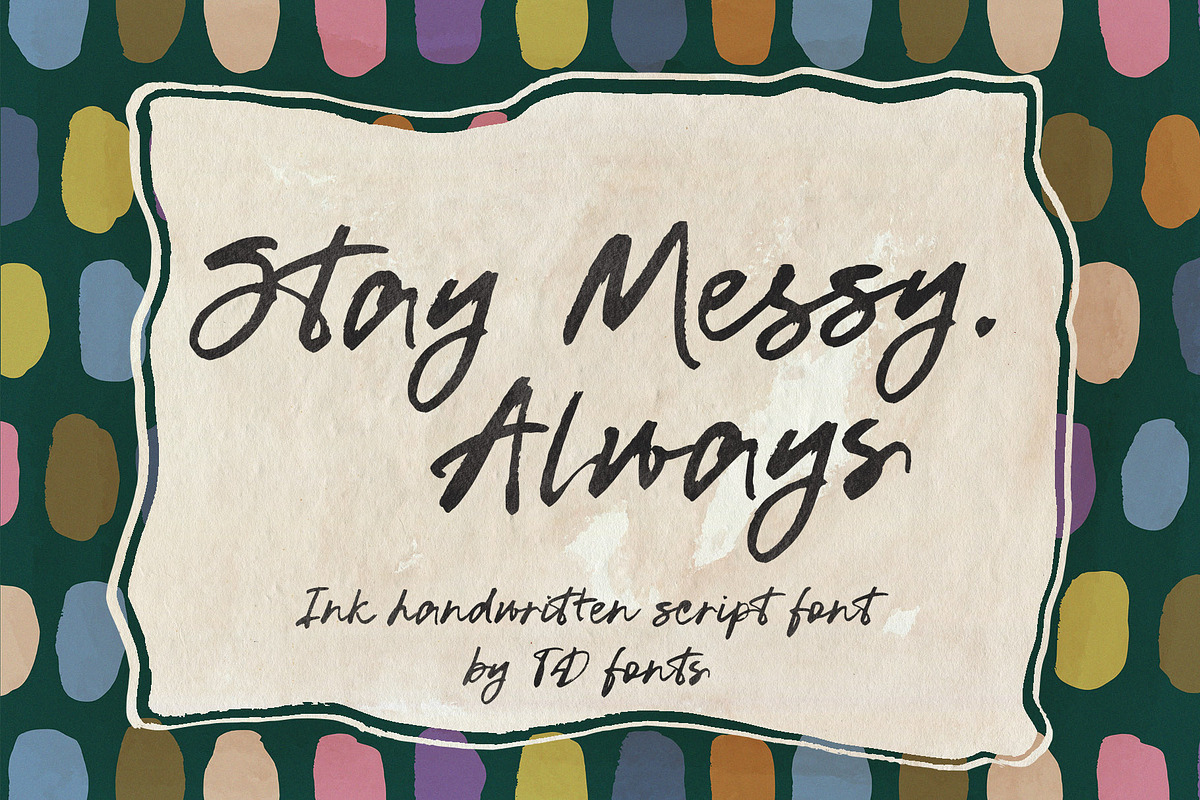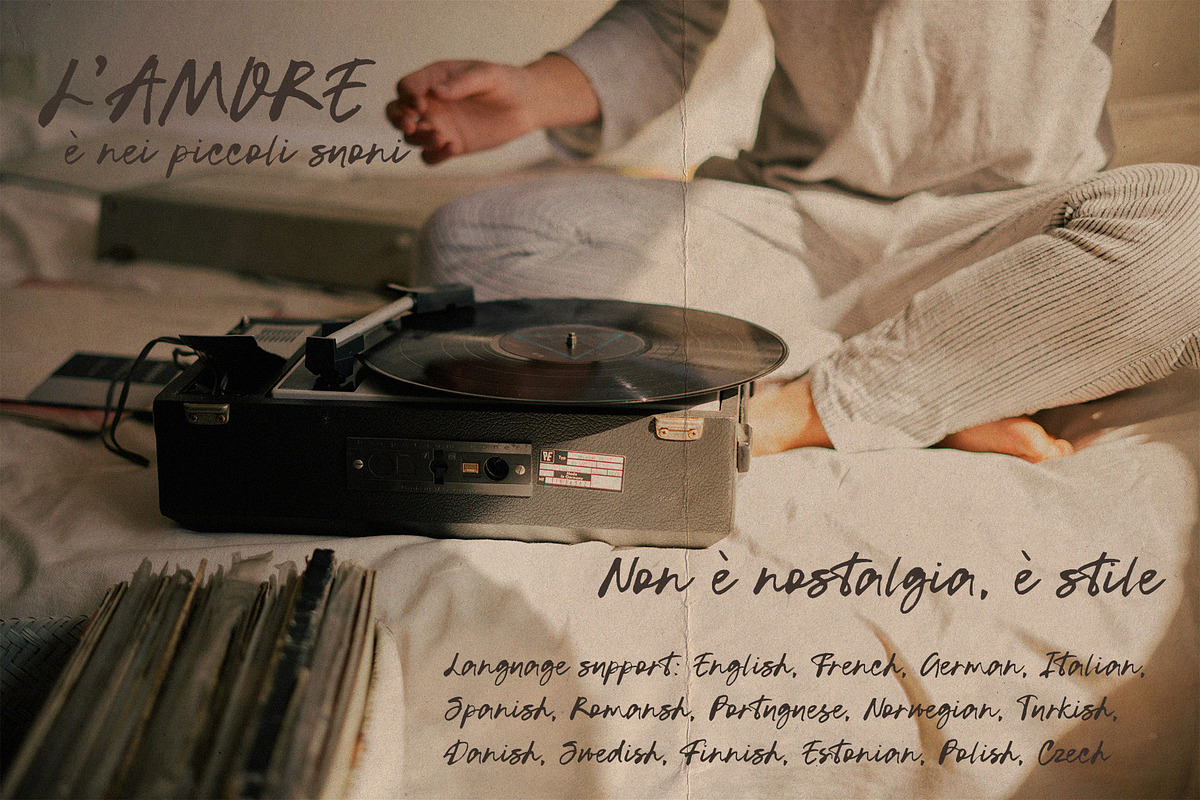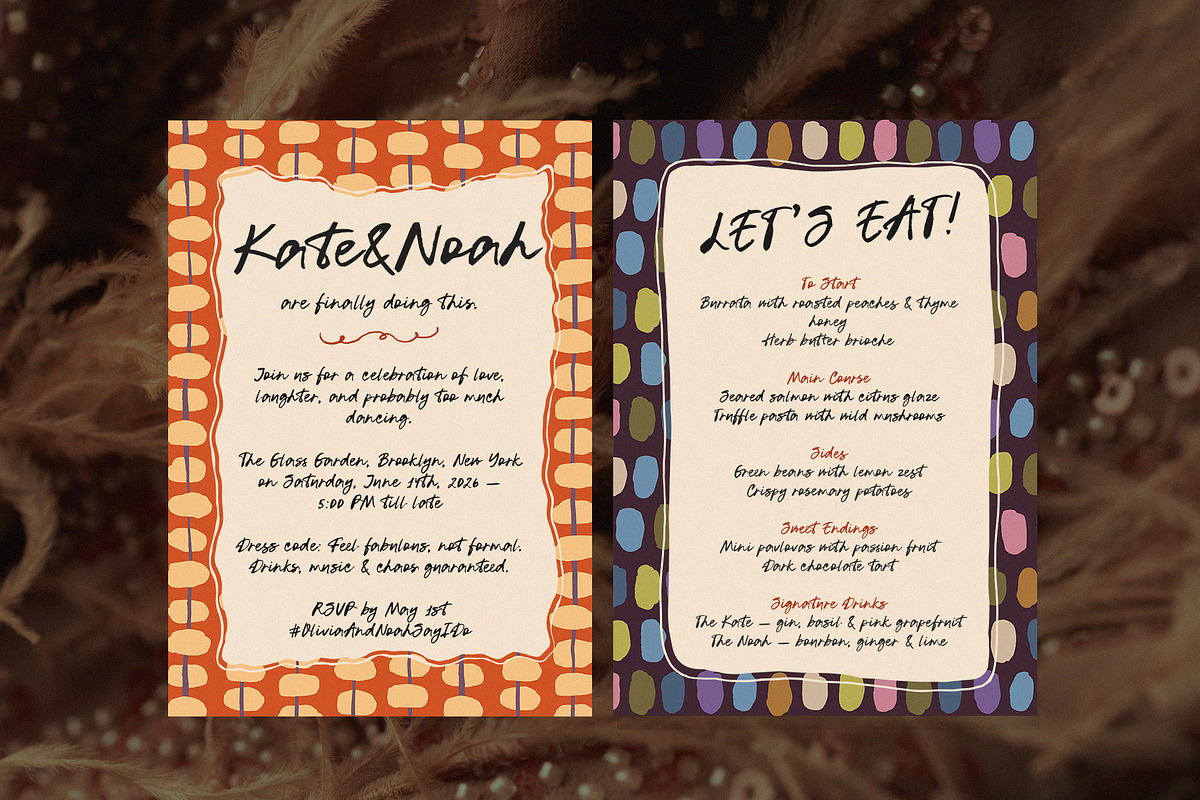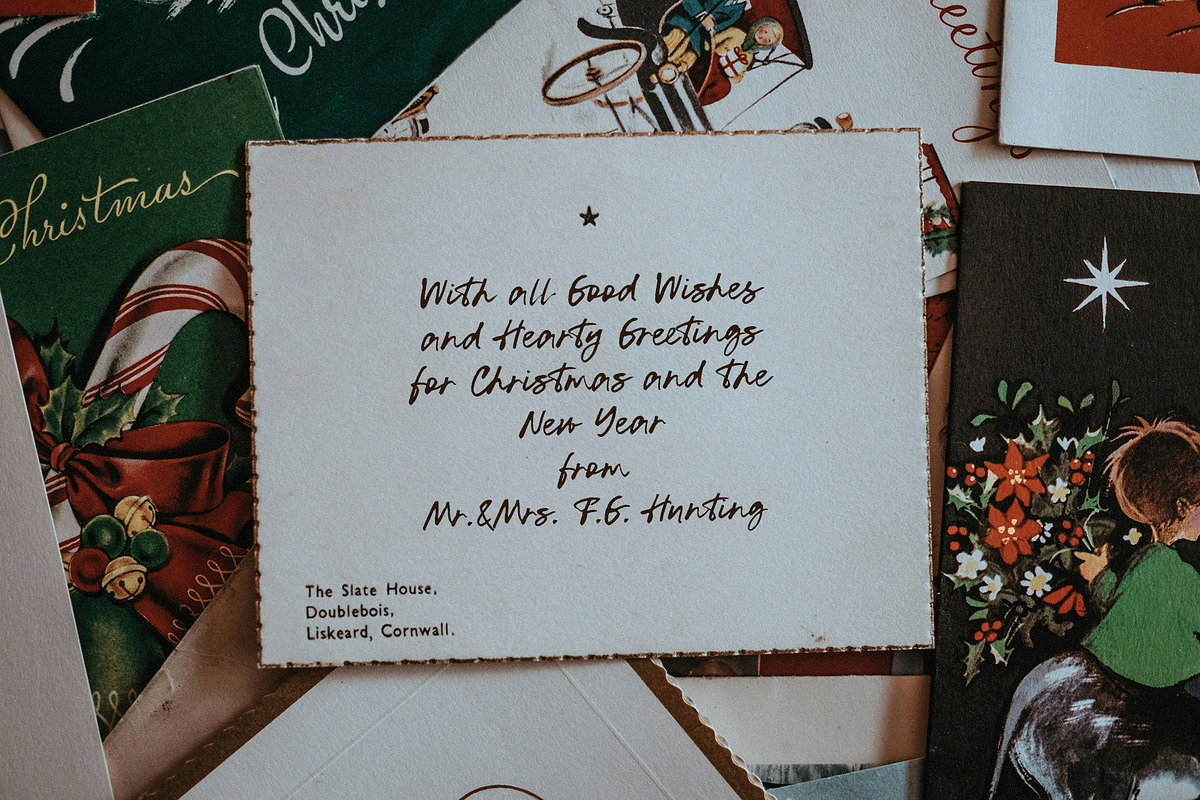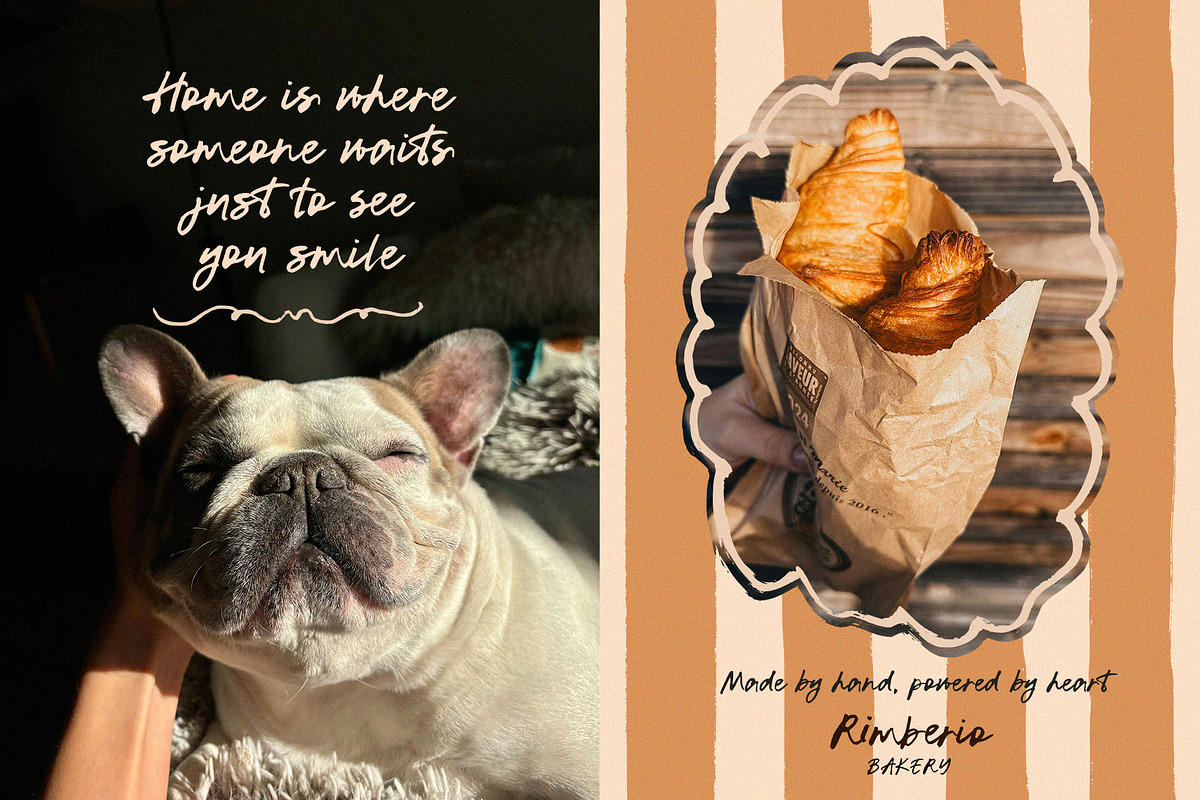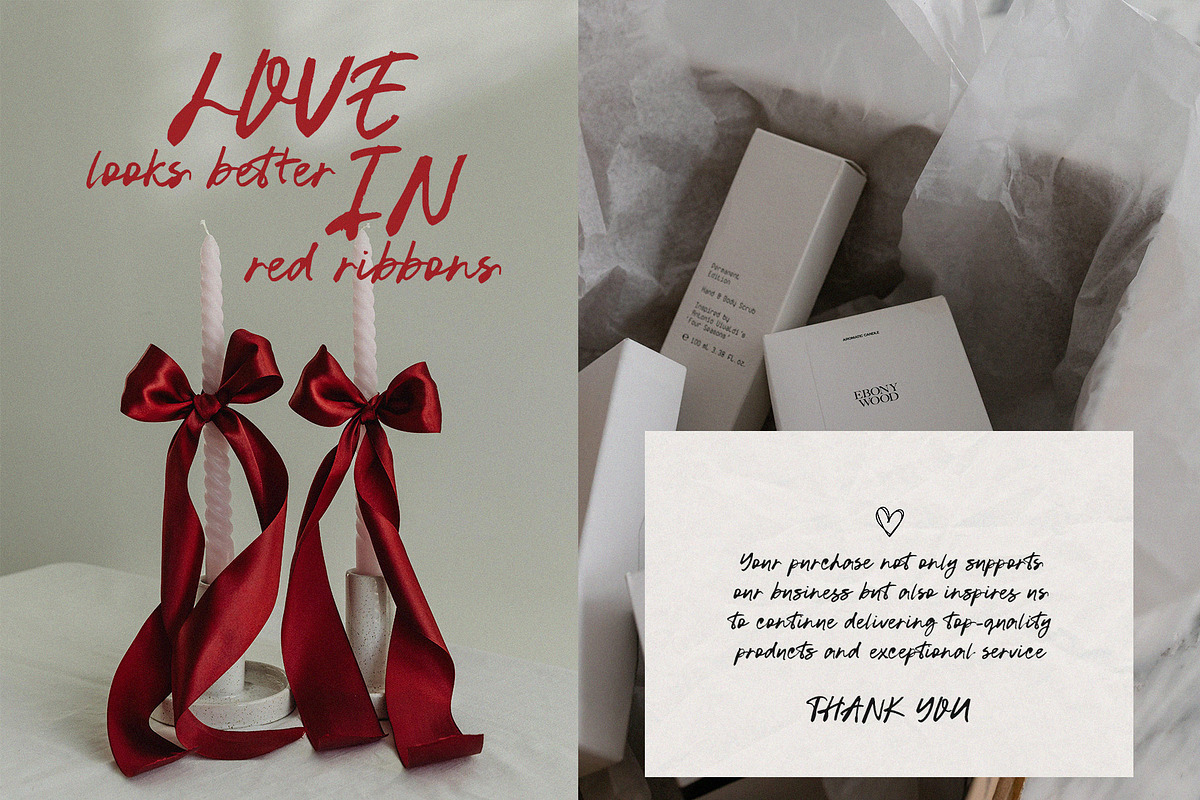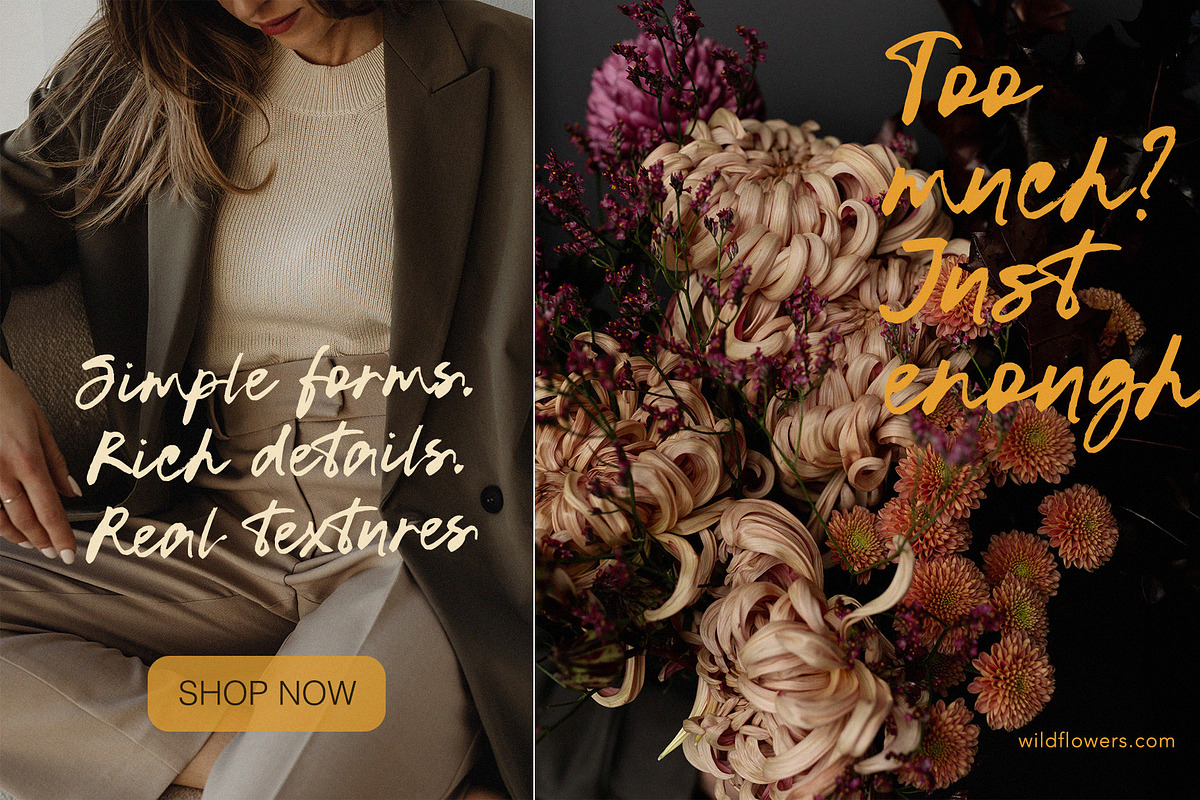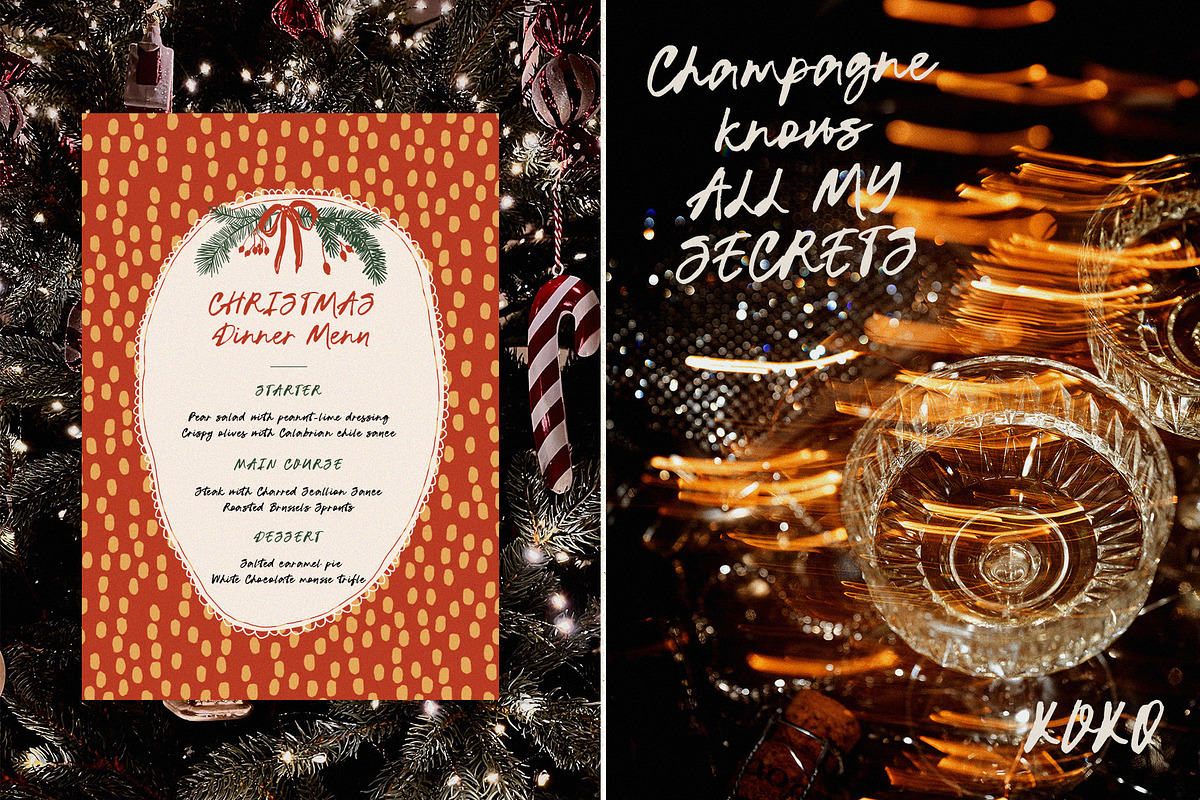
Messy ink script font handwritten
Stay Messy. Always is a bold handwritten ink script font written with a vintage dip pen — expressive, fast, and perfectly imperfect, just like the best creative moments.
Every stroke carries the raw energy of real ink and the momentum of handwriting that doesn't try too hard to be perfect — it simply is. The letterforms are large and generous, with a strong rightward lean, wide looping ascenders, and organic connections that make every word feel written in one continuous, confident motion. The ink texture gives the strokes a slightly rough, honest quality — not distressed or damaged, but alive and warm, the way good handwriting always feels.
Stay Messy combines a subtle retro vibe with a modern twist. It has the boldness of a display script and the readability of a practical workhorse — equally at home as a large headline and as flowing event stationery text. The slightly rough ink texture adds depth and personality, while smooth connections and organic rhythm keep it balanced and easy to read. It pairs beautifully with minimalist sans-serif fonts, bringing emotion and texture to clean, modern layouts.
If you love fonts with soul — a little messy, a little nostalgic, and full of life — Stay Messy. Always is your perfect match.
Graphic design & modern branding
Product packaging & labels
Wedding stationery, invitations & event design
Christmas cards, holiday prints & seasonal packaging
Websites & social media graphics
Editorial layouts, posters & prints
Any project that needs handmade warmth and expressive energy
Font features:
Bold handwritten ink script written with a vintage dip pen — raw, textured, and full of life
Strong rightward slant (\~25–30°) with wide looping ascenders and generous letterforms
Medium-high stroke contrast — thick downstrokes, thin upstrokes, organic dip pen character
Real ink texture with slight stroke roughness and natural ink variation
Fully connected script with a lively, bouncing baseline for an authentic handwritten rhythm
More versatile than a pure display font — readable at headline scale and in flowing event stationery text
Alternates and ligatures for natural, varied letter combinations so every word looks truly written
Pairs beautifully with minimalist sans-serif fonts
The aesthetic: Stay Messy. Always feels celebratory, warm, and real. It is the font you reach for when a design needs to feel like it was made with love and not assembled from a template. Bold enough for a poster, personal enough for a wedding invitation, festive enough for Christmas packaging — and honest enough for any brand that believes in keeping things beautifully imperfect.